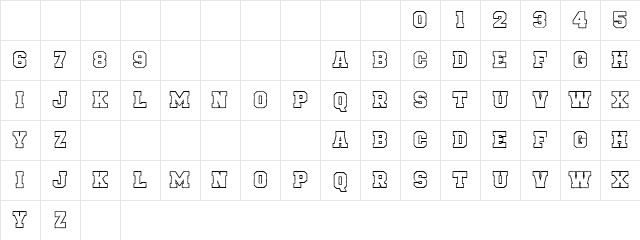
Complete CF University of Nowher Outline glyph index. Displaying only characters natively supported by CF University of Nowher Outline font.
CF University of Nowher is built around its visual character rather than neutral utility - its distinctive forms are designed to make an impression at display sizes.
Font Pairing: Pair with a clean neutral sans-serif for body copy to let CF University of Nowher's character lead without overwhelming the composition.
Pro Tip: Use CF University of Nowher exclusively at display sizes - it was designed to be seen, not read at length. Let a neutral companion handle body copy.